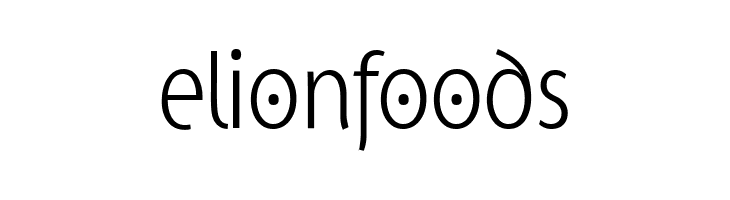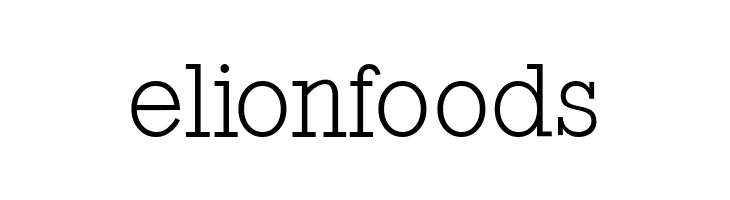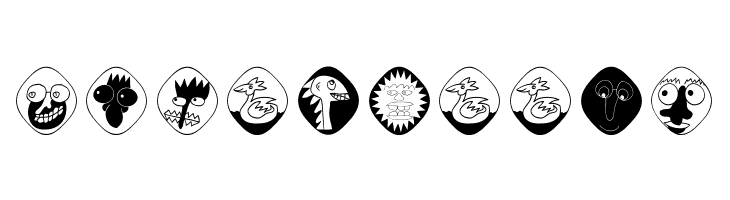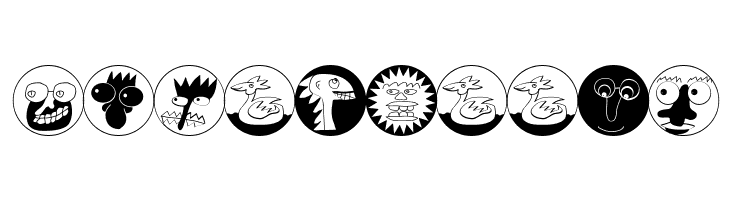
A modern, light sans-serif font with geometric shapes and low contrast.
Ornamental dingbat set with abstract and animal motifs.
An angular, primitive font with a tribal aesthetic.
A classic serif font with elegant lines and high contrast, ideal for formal and modern uses.
A classic serif font with an elegant oblique slant and moderate contrast.
A bold, condensed serif font with strong strokes and a modern yet classic appeal.
A classic serif font with modern elegance and balanced proportions.
A clean and elegant serif font with thin strokes and subtle curves.
Whimsical, illustrated font made of cartoon faces in ovals.
A decorative font with quirky character illustrations in circles, offering a playful and humorous style.